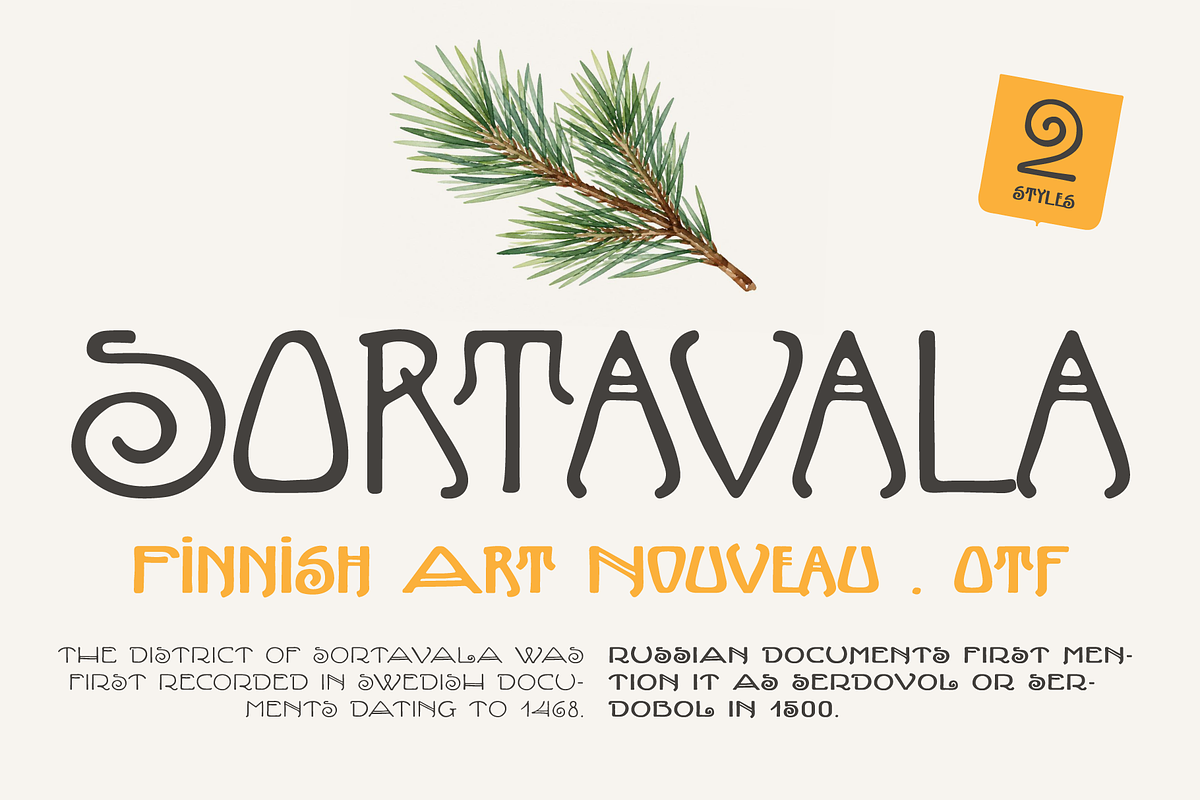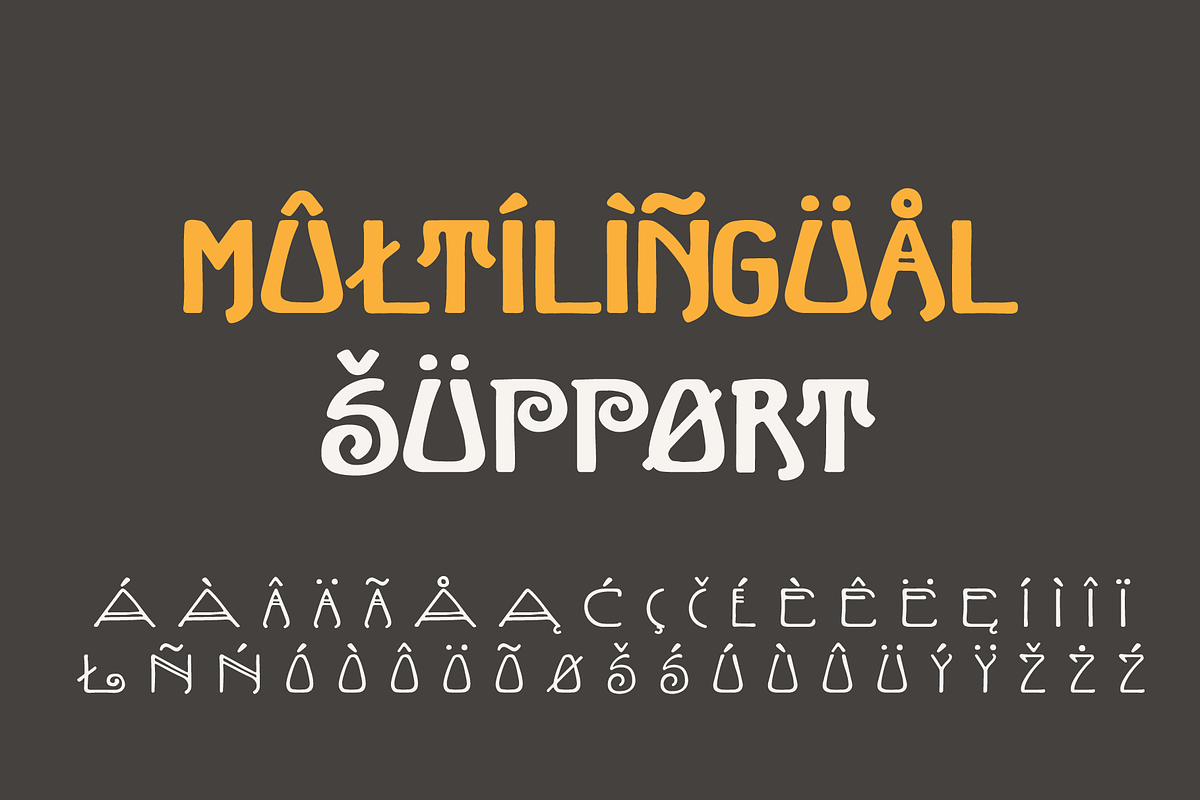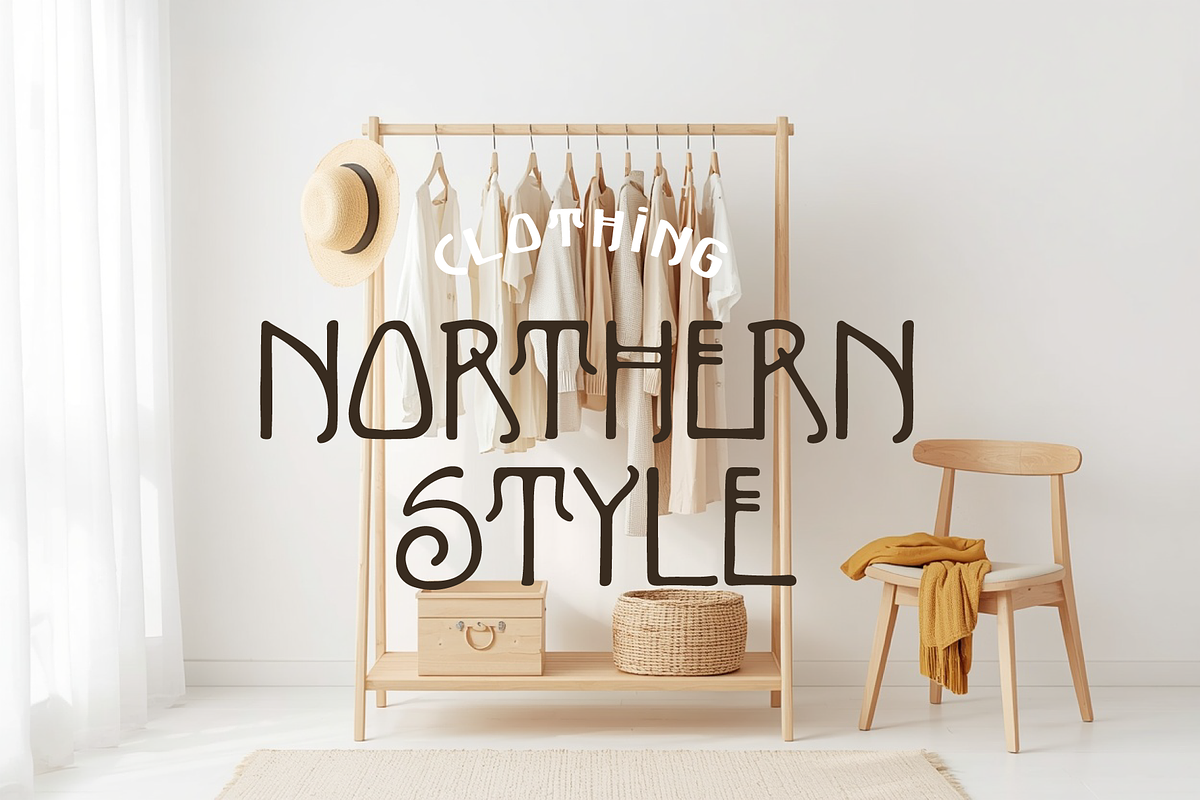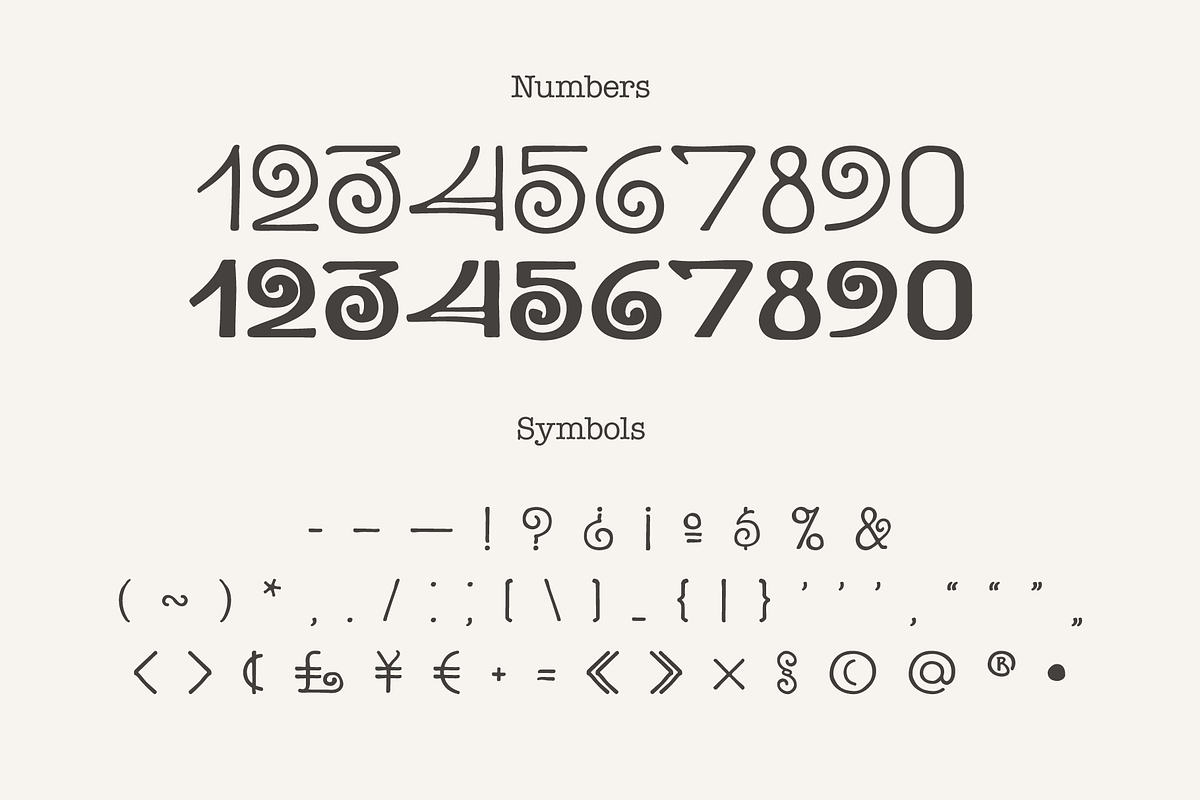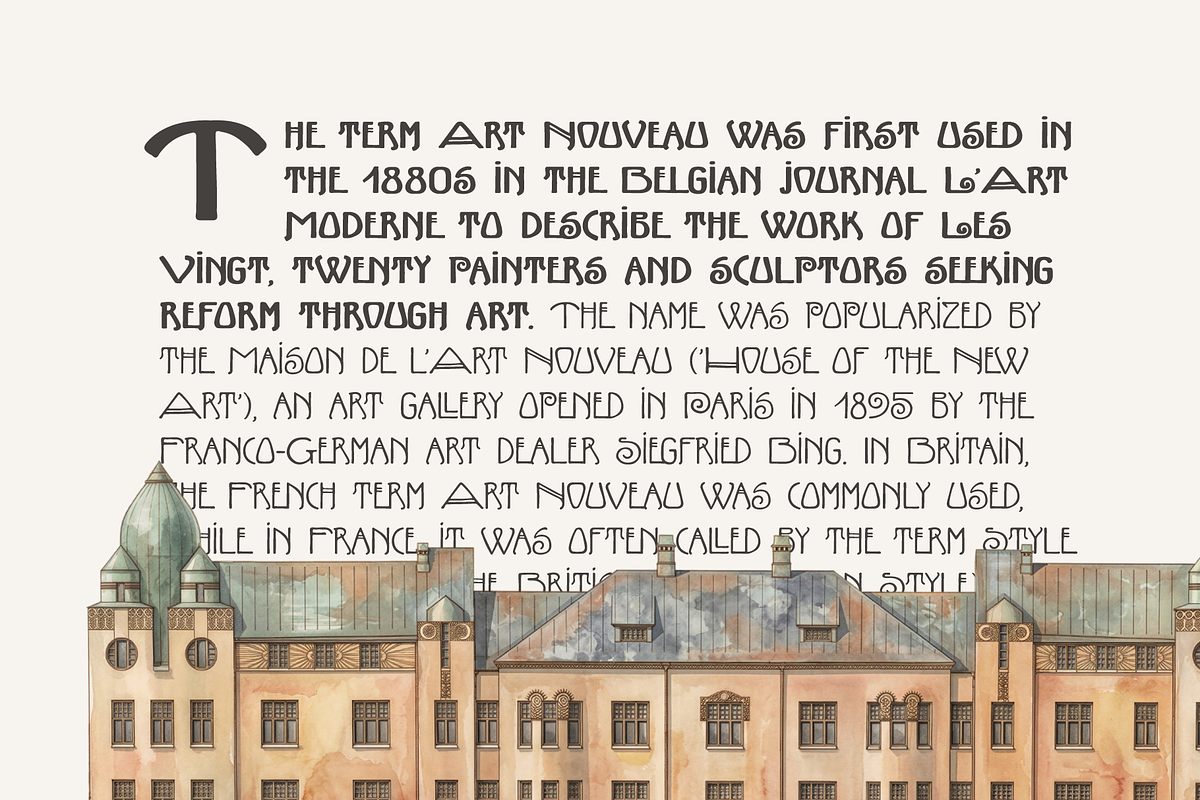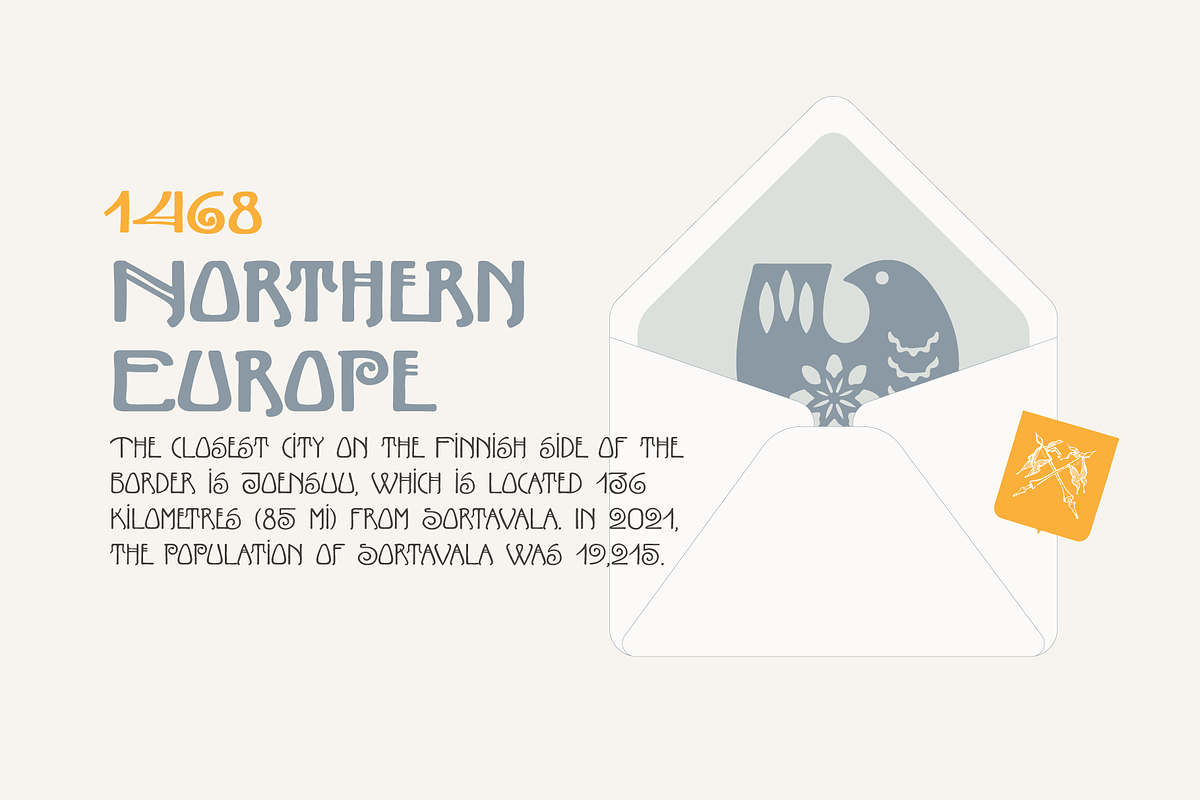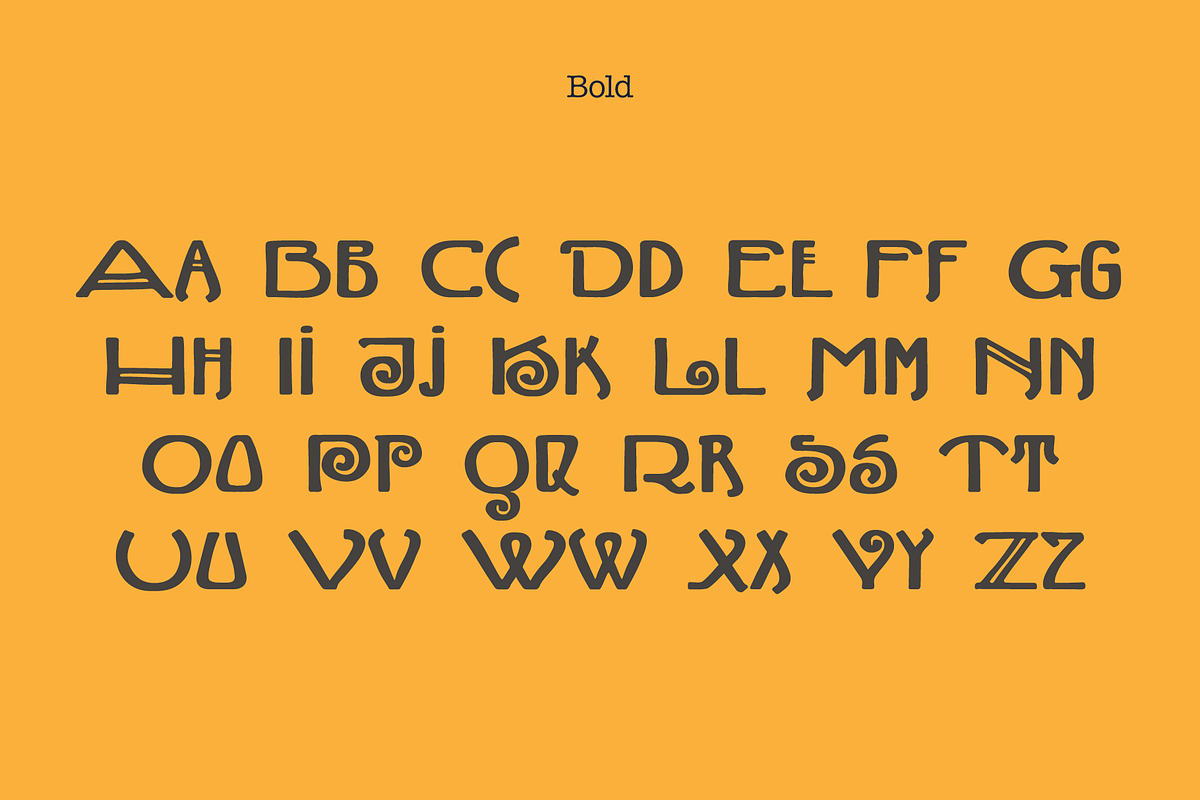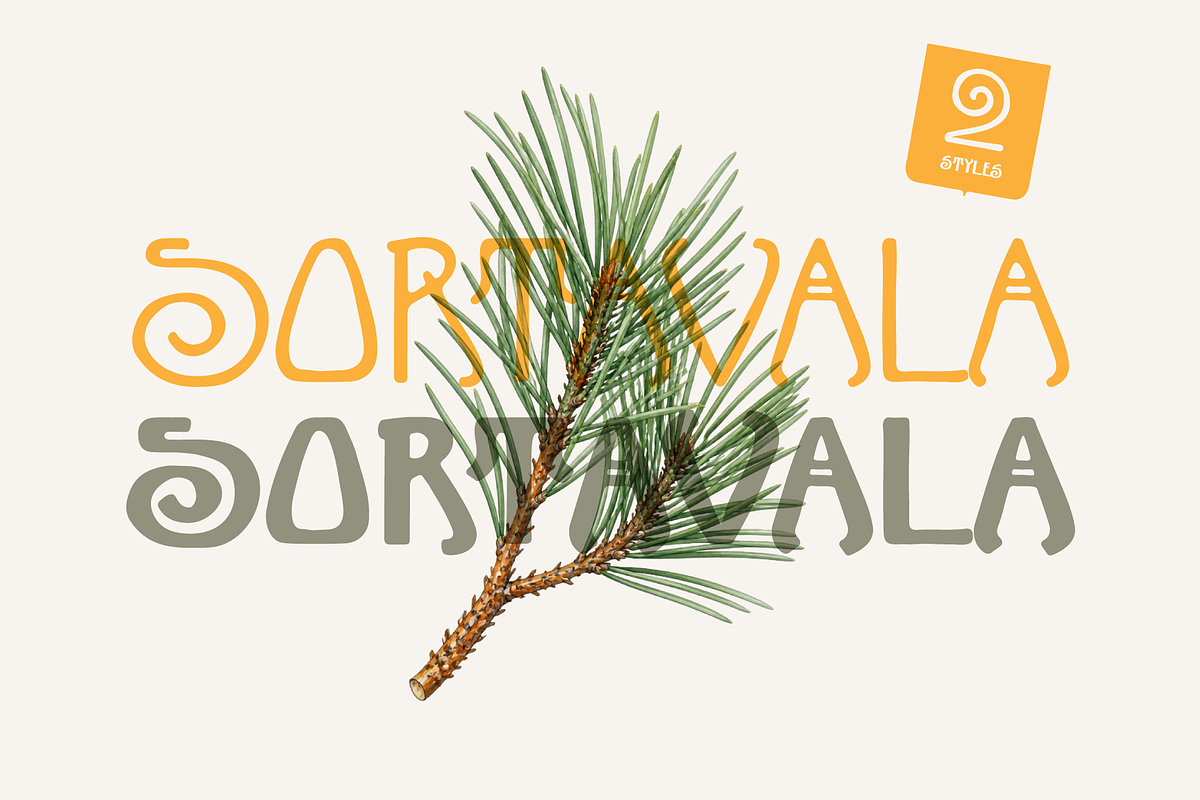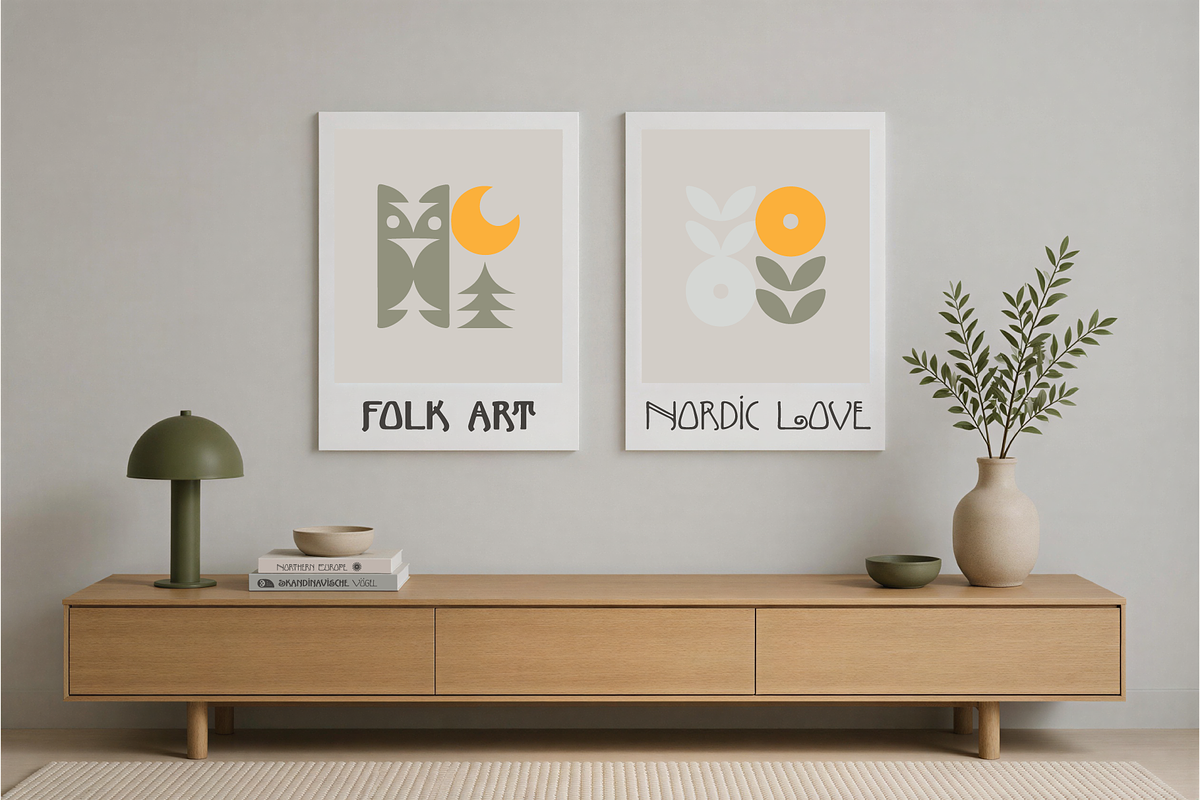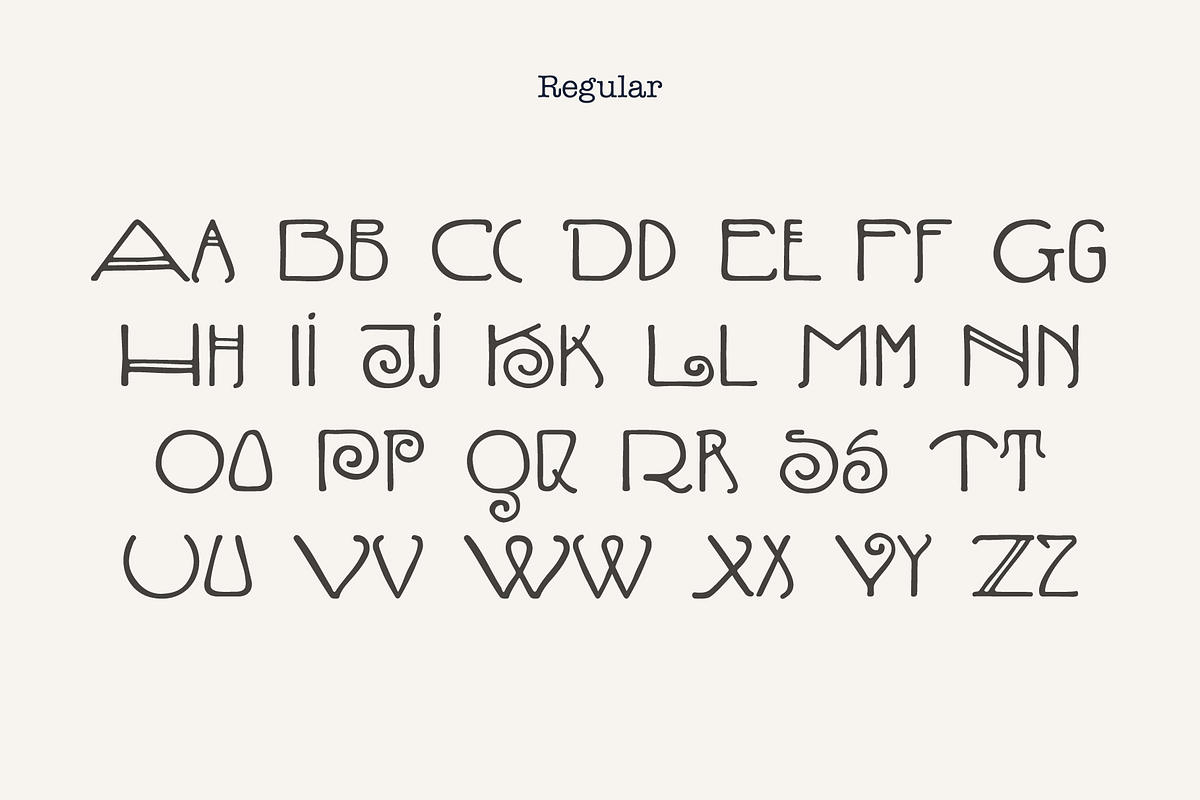
Finnish Art Nouveau
This typeface was inspired by architectural drawings I discovered in the city of Sortavala. While exploring historical archives, I came across original plans created by Frans Sjöström, featuring distinctive handwritten signatures and elegant lettering.
The unique character of these inscriptions immediately caught my attention and became the foundation for this font. I carefully studied their forms and proportions, adapting their spirit into a contemporary typeface while preserving its Nordic Art Nouveau atmosphere.
The family includes both Regular and Bold styles, making it suitable for branding, editorial design, packaging, and display projects.
\\\\\\\* Regular and Bold styles
\\\\\\\* Numbers and symbols
\\\\\\\* Multilingual support
\\\\\\\* Additional glyphs